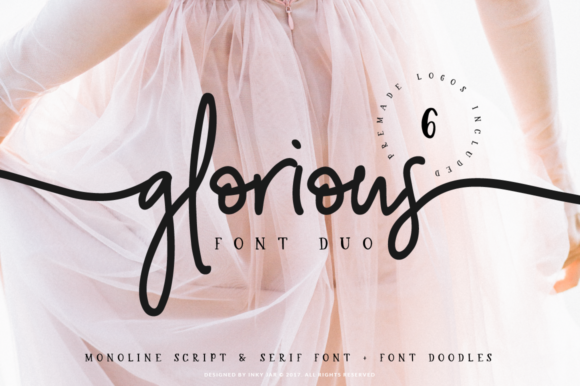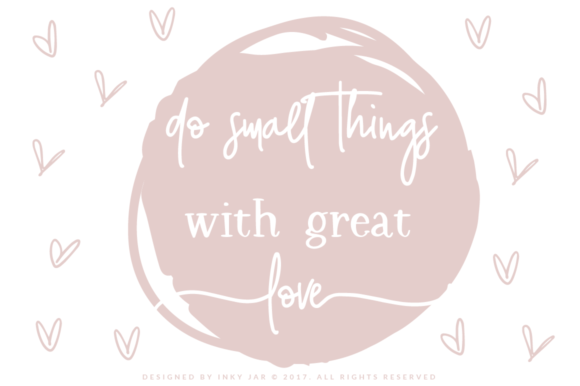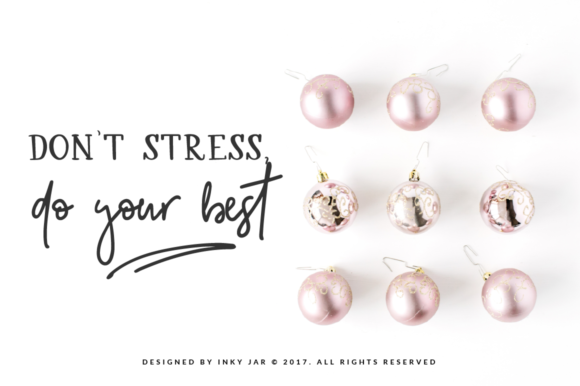
About Glorious Duo Font
The Glorious is a perfect branding combo which includes a signature style monoline script font and handwritten serif font. But, that’s not all – it also contains a doodle font which has a lot of hand drawn shapes and is perfect for any branding or project.